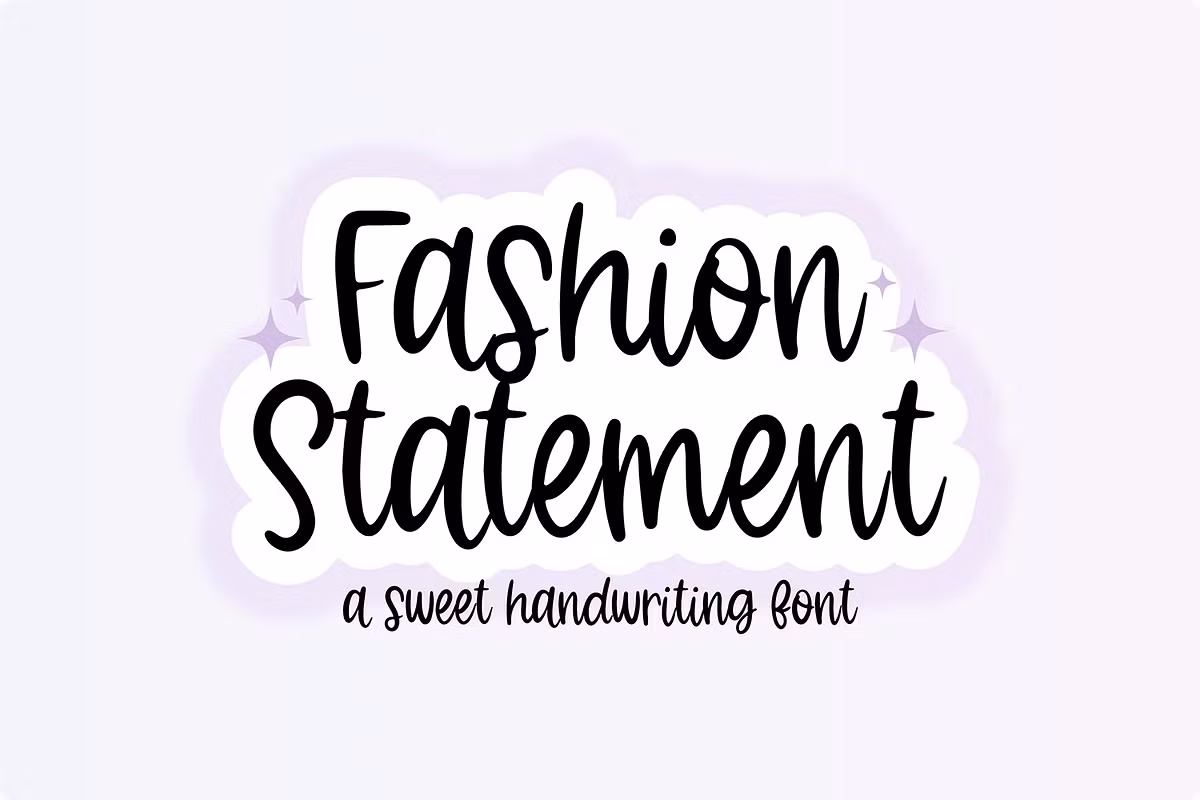
FASHION STATEMENT Brush Handwriting Font Free Download is a bold and expressive handwritten typeface with a high-fashion edge. Featuring natural brush strokes, dramatic curves, and a confident flow, this font is perfect for fashion branding, magazine covers, influencer content, product packaging, and edgy social media graphics.
Its raw, stylish energy makes it stand out in both digital and print designs, adding personality and flair wherever it's used. Whether you're crafting a modern logo, a stylish promo, or a trend-setting headline, this font brings runway-ready attitude. You can test it out for free, but a commercial license is required for any monetized or client-based projects.
Make a bold impression with FASHION STATEMENT Brush Handwriting Font Free Download and give your designs a touch of chic, creative confidence. It’s a must-have for fashion-forward designers and trendsetters who want their typography to speak loud and clear.